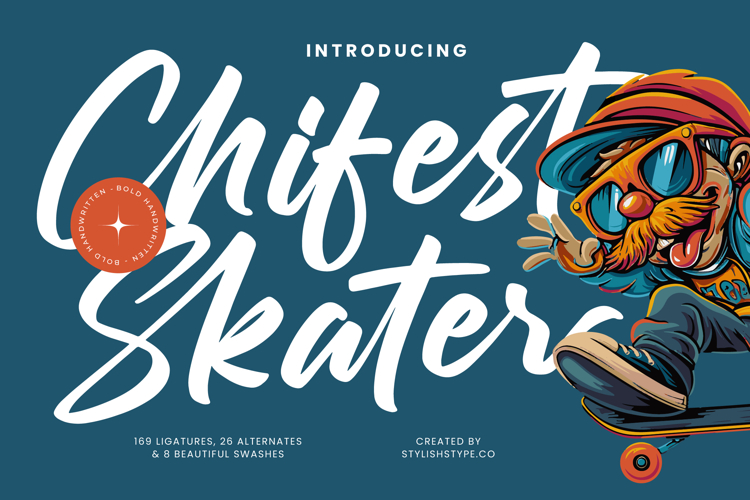
Chifest Skater - Bold Handwritten Font
Unleash an unparalleled level of visual charisma with Font Chifest Skater - Bold Handwritten Font Script. This remarkable typeface embodies a spirit of dynamic energy and effortless cool, perfect for projects demanding a touch of authentic, yet refined, rebellion. Its bold, fluid strokes capture the essence of spontaneous creativity, making every word an expressive statement and ensuring your message truly stands out.
Crafted with a distinctive handwritten aesthetic, Font Chifest Skater - Bold Handwritten Font Script boasts a robust character set featuring 169 ligatures, 26 alternates, and 8 beautiful swashes. This extensive array of stylistic options ensures your designs achieve a truly custom and unique appearance, providing endless possibilities for creative expression and typographic exploration. The natural brush texture adds warmth and an inviting appeal.
Elevate your branding and design projects with the versatility of this exceptional script. Font Chifest Skater - Bold Handwritten Font Script is perfect for streetwear fashion, vibrant social media campaigns, impactful posters, engaging editorial layouts, and distinctive product packaging. With its extensive multilingual support, Font Chifest Skater - Bold Handwritten Font Script adapts seamlessly across global markets, making it incredibly versatile for international projects.
Choose Font Chifest Skater - Bold Handwritten Font Script to inject an undeniable sense of personality and bold authenticity into your visual communications. It's the ideal choice for designers seeking to make a memorable impression, creating designs that resonate with audiences and stand out in a crowded marketplace. Experience the power of truly expressive typography.